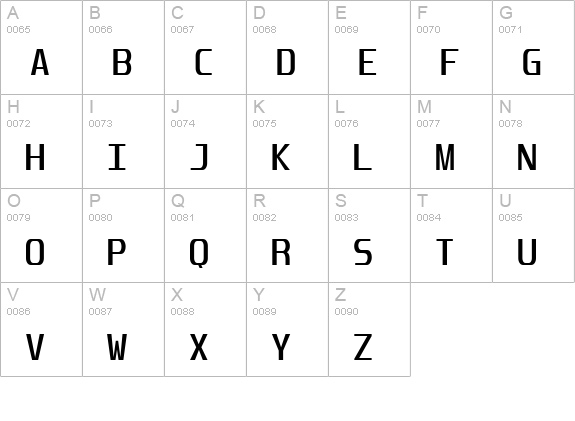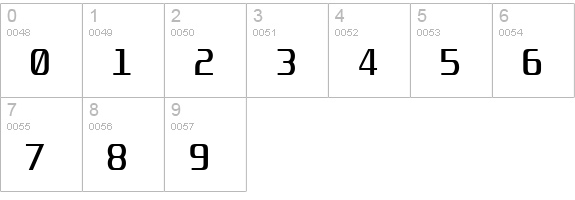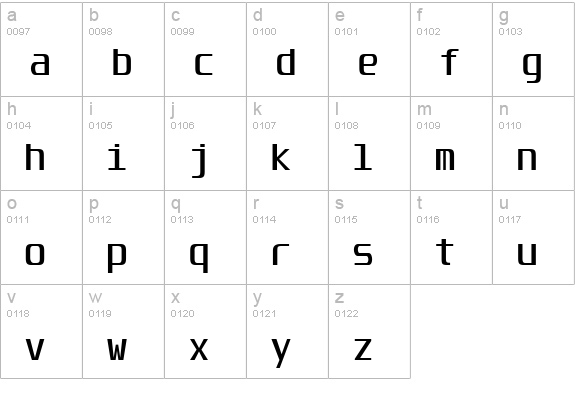
Unispace font is a modern and versatile typeface that combines simplicity with elegance. Its clean lines and balanced proportions make it perfect for a wide range of design projects, from corporate branding to editorial layouts. With its timeless appeal, Unispace font adds a touch of sophistication to any project. Whether you're designing a logo, creating a website, or designing a brochure, this font will bring a sense of professionalism and style. One of the best features of Unispace font is that it is free. Yes, you read that right! This stunning font is freely available to download at FontsMarket.com. Now you can enhance your design projects without breaking the bank. Unispace font is not only visually appealing but also easy to read, making it suitable for both print and digital media. Its clear and legible characters ensure that your message is conveyed effortlessly, grabbing the attention of your audience. The versatility of Unispace font is another reason why it stands out from the crowd. It comes in various weights and styles, allowing you to experiment with different looks and create a unique identity for your brand. Whether you're a professional designer or a novice, Unispace font is a valuable addition to your font collection. Its sleek and modern design will elevate the visual appeal of your projects, while its accessibility and availability for free make it a must-have for any designer. So why wait? Head over to FontsMarket.com now and download Unispace font for free. Unleash your creativity and take your designs to the next level with this stunning typeface.